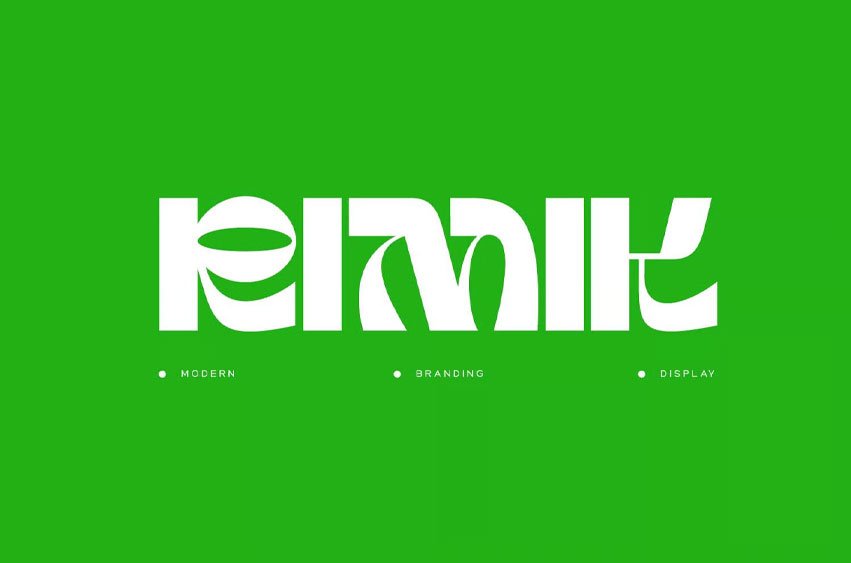
Rimik Font is a Modern Decorative Typeface. Perfect for posters, magazine covers, headlines, logos, Branding, and more, this font brings a modern and dynamic touch to any design.
Each character is carefully designed to ensure clarity and visual appeal, making them perfect for creating eye-catching posters, striking magazine covers, and attention-grabbing headlines.